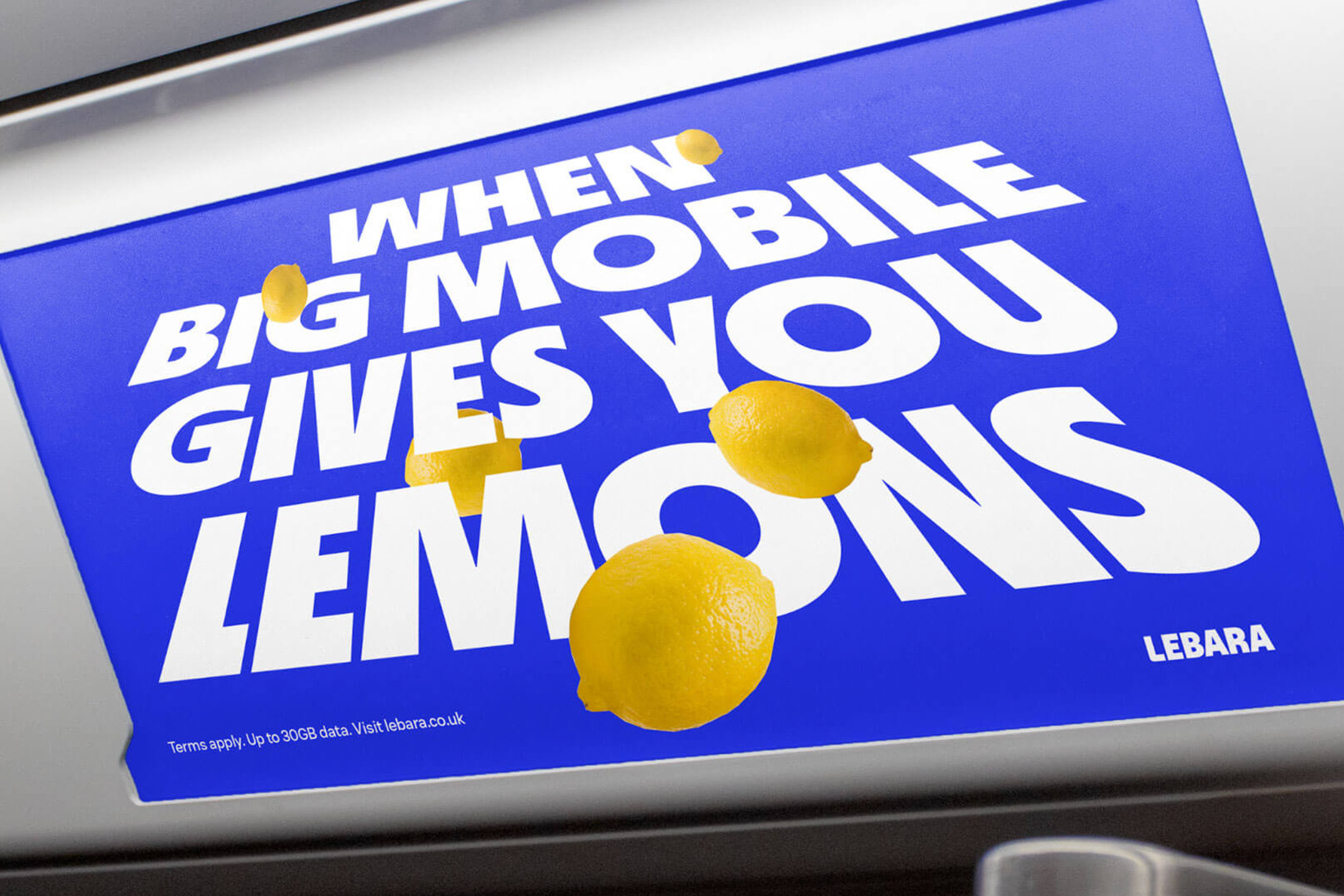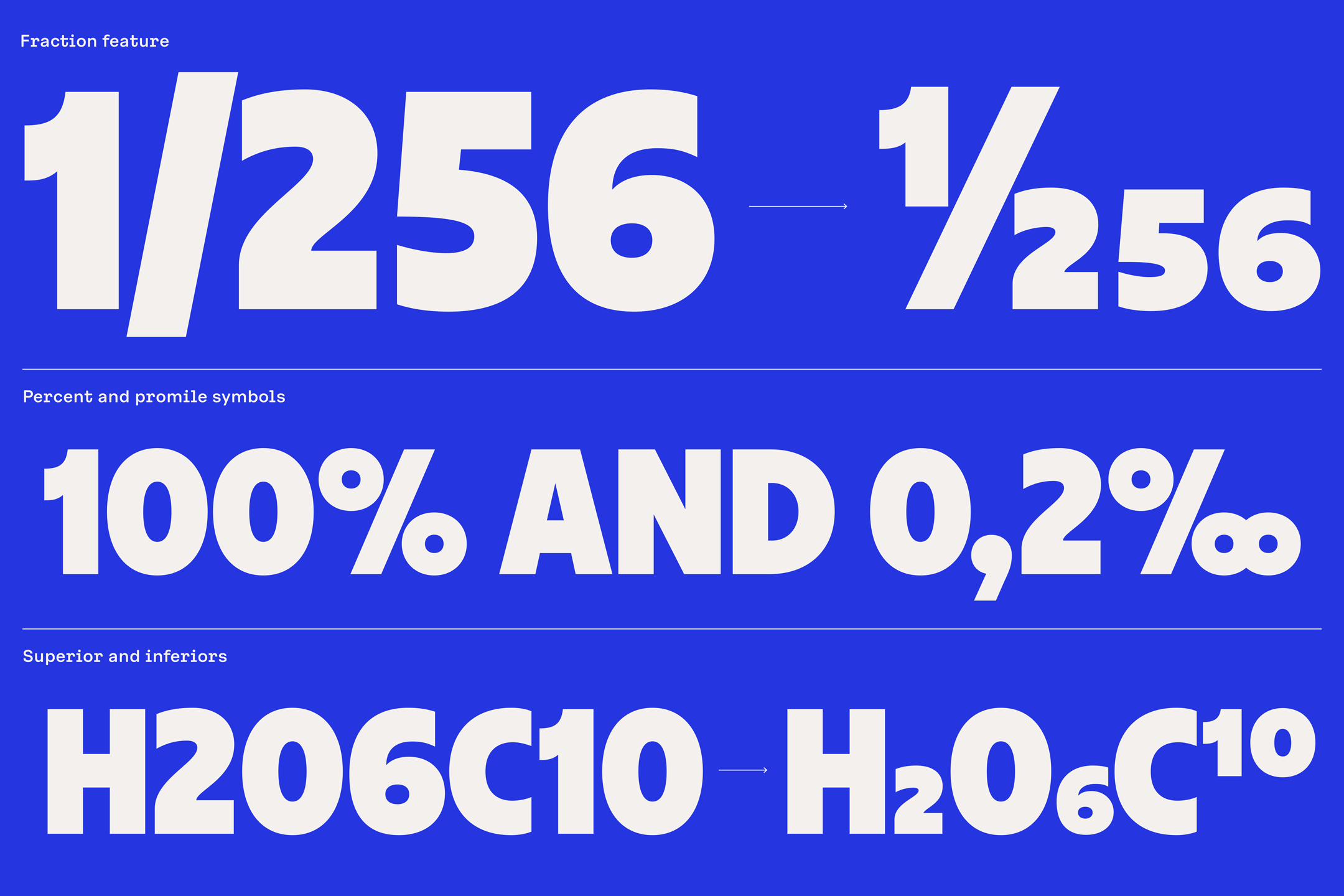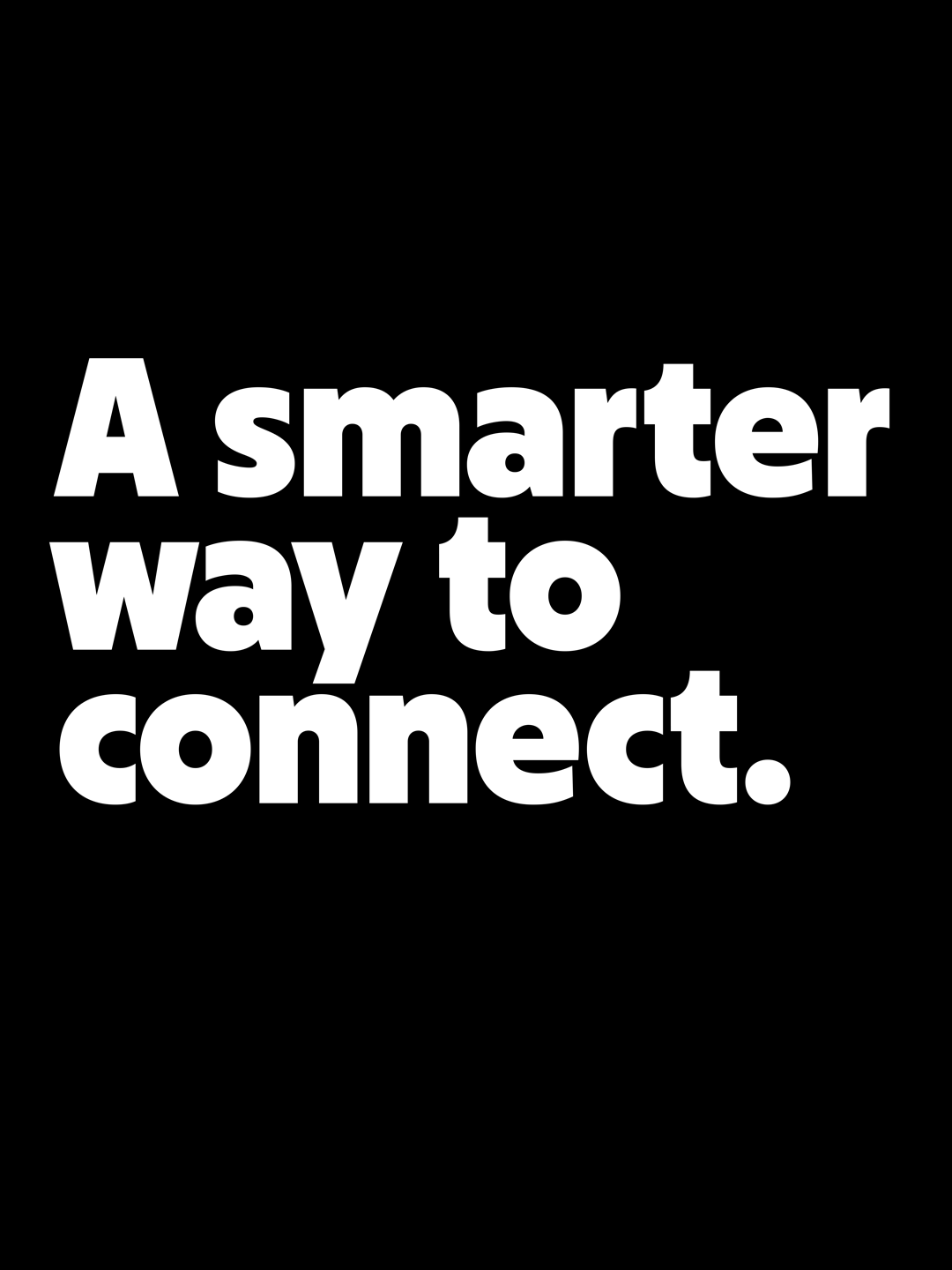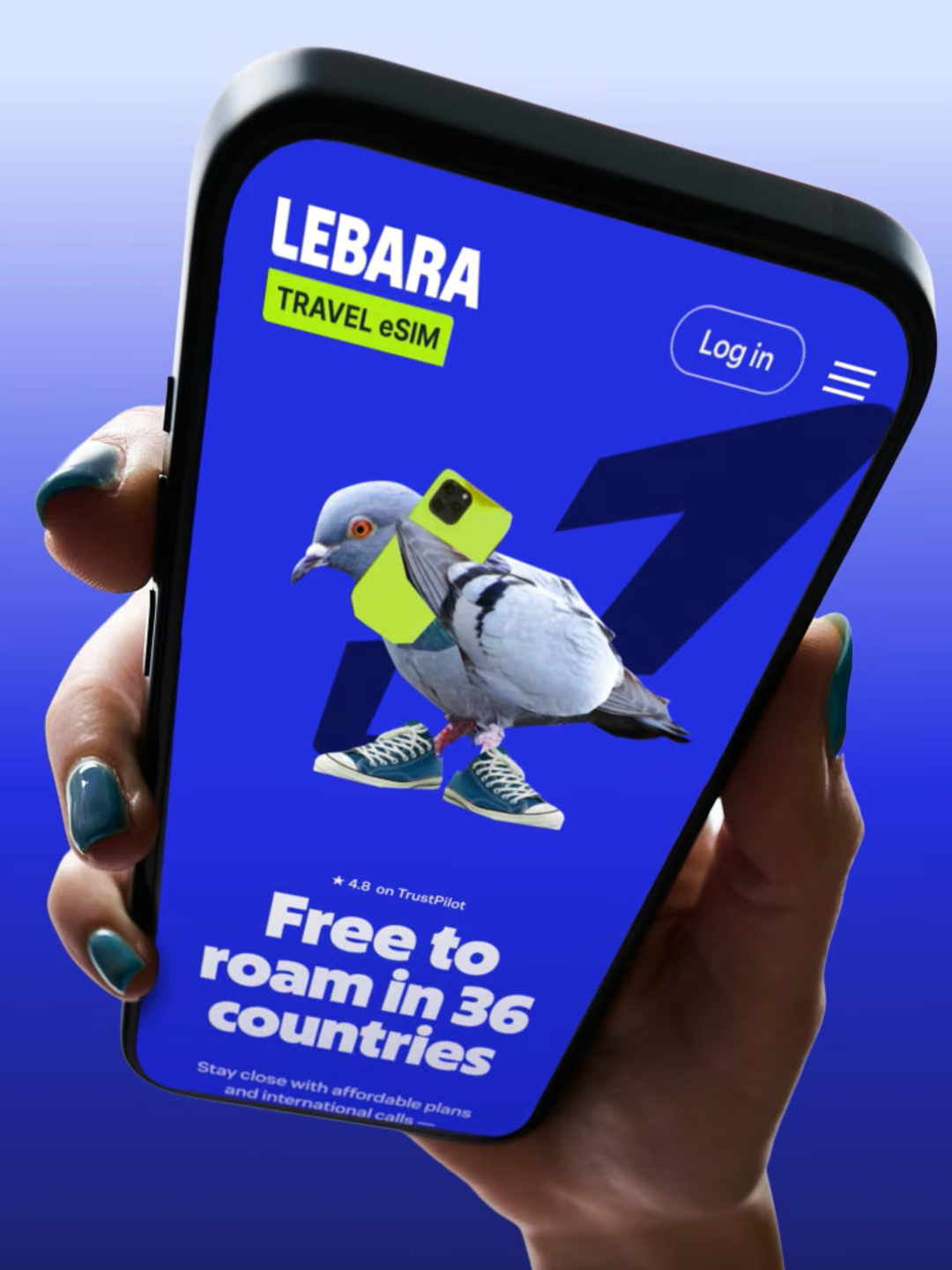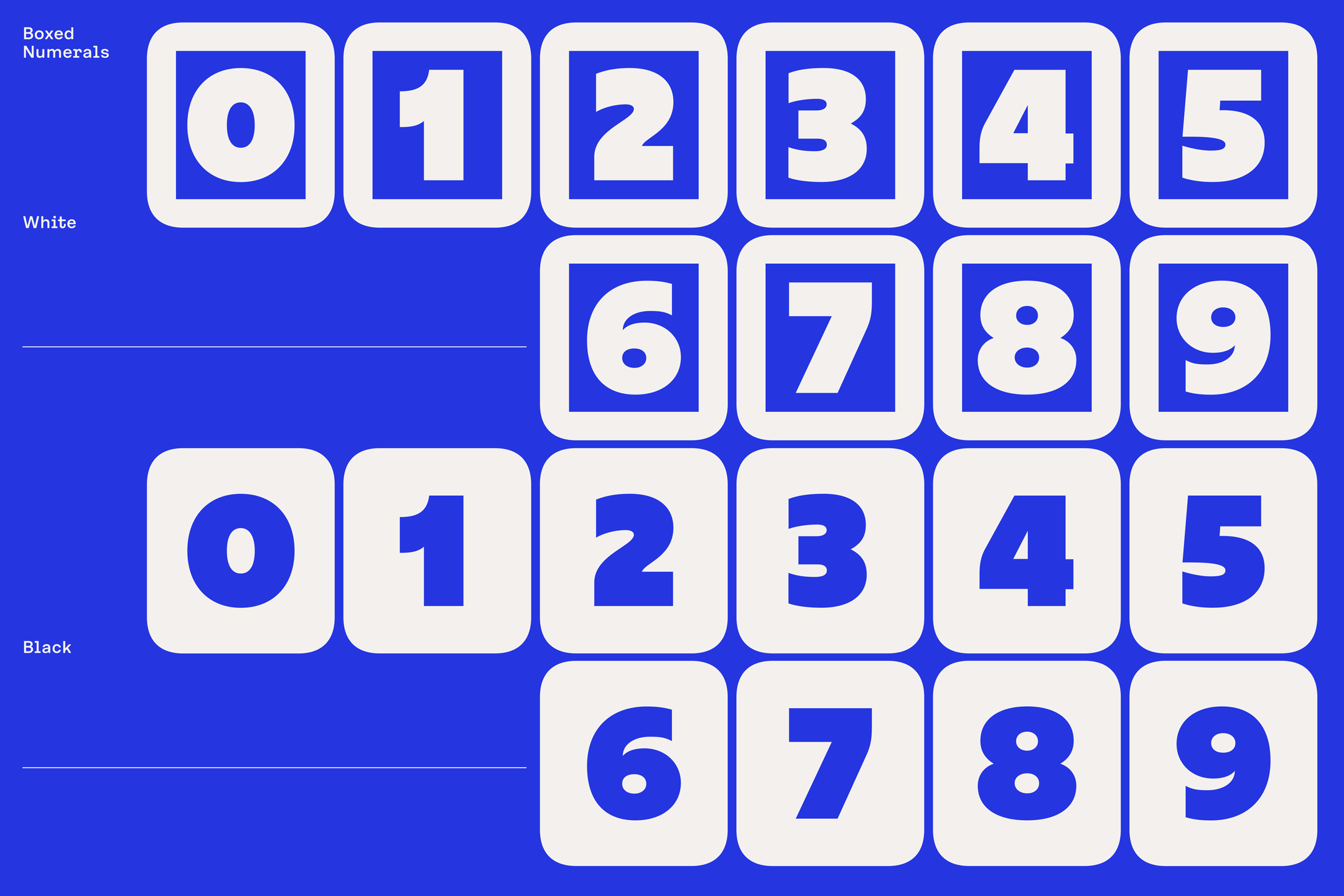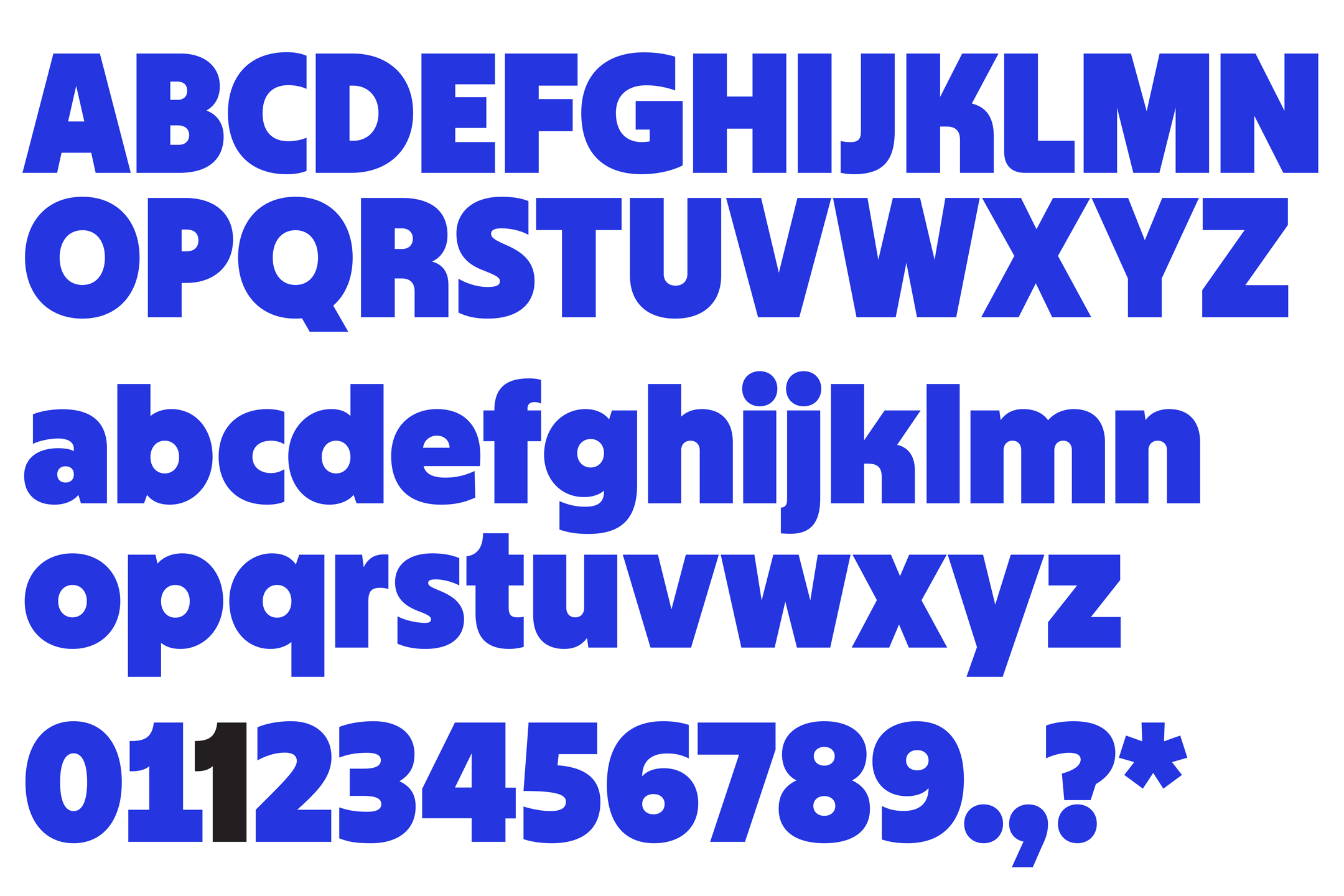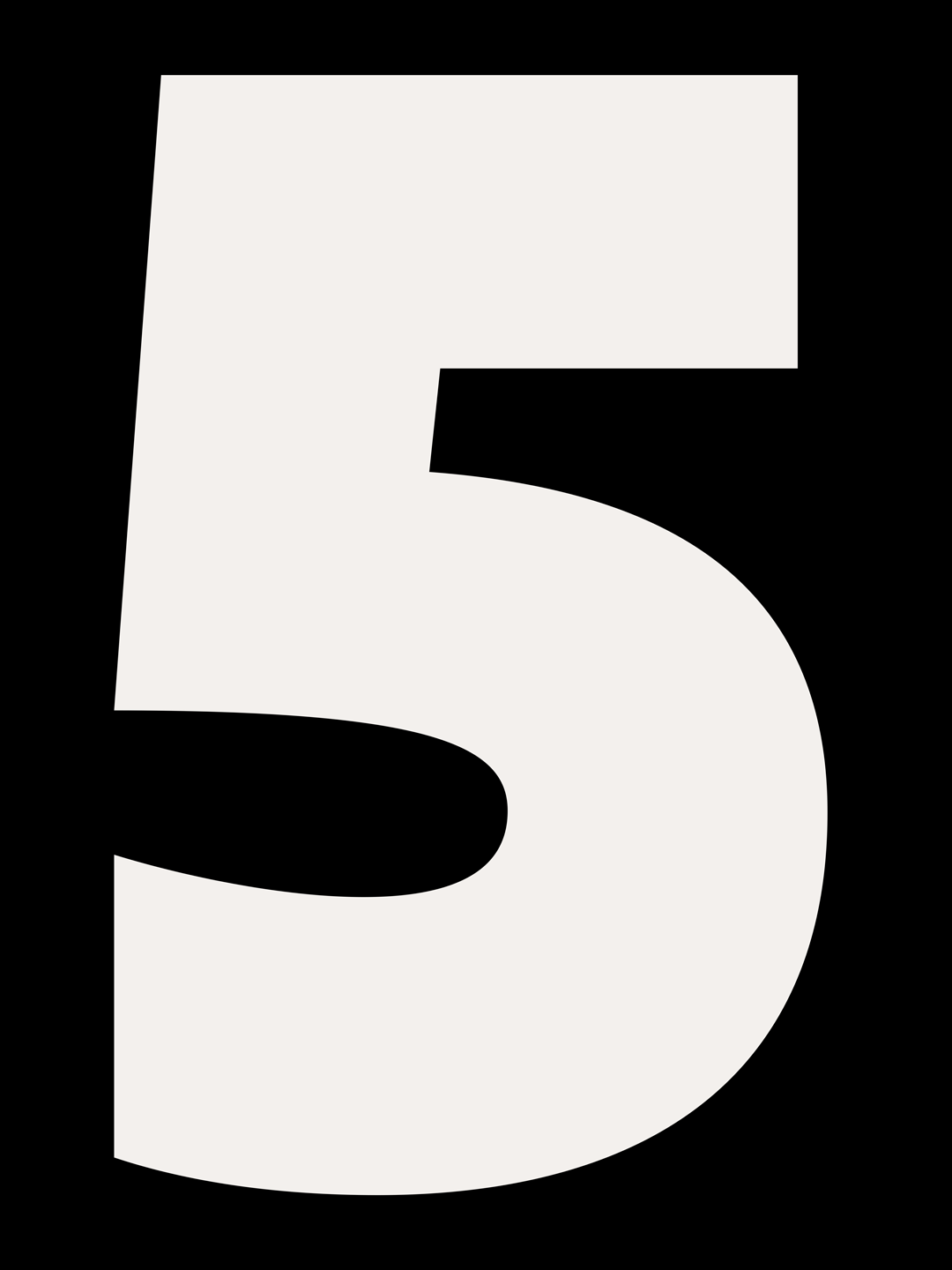
Lebara Sans is a bespoke typeface created for Lebara in collaboration with Verve Agency. Drawing inspiration from the optimistic visual language of the late 1970s and 80s, the design captures a familiar retro warmth while being carefully refined for contemporary branding and digital communication. Geometric construction, generous curves, and distinctive proportions evoke a nostalgic character without feeling referential or dated. Modern spacing and meticulously balanced metrics ensure the typeface performs effortlessly across today's applications from expressive campaign headlines to everyday brand messaging. Lebara Sans bridges past and present, giving the brand a typographic voice that feels welcoming, memorable, and unmistakably contemporary.